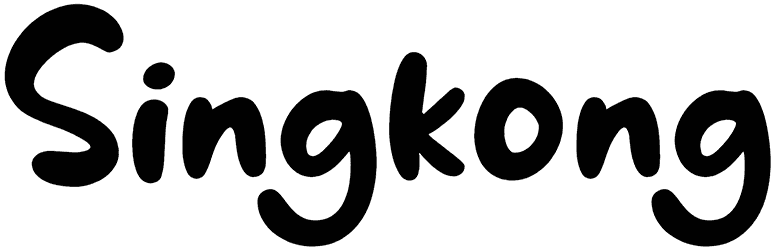
Singkong Font
For your next playful layout, let’s set this cartoon font and amaze your followers with the unique outcome. The characters of this handwritten font are thick and cute, which can make your project unforgettable. Benefit from the Singkong font for your new design of a café board or whatnot, and reveal your special taste.